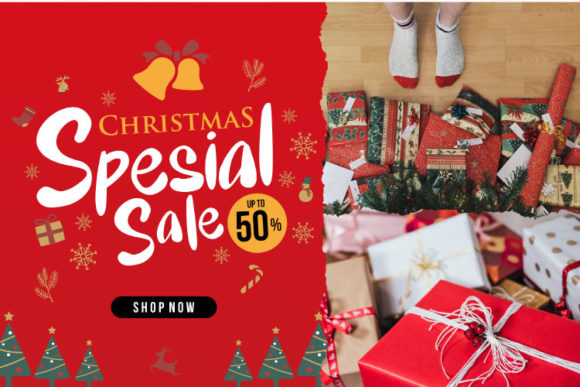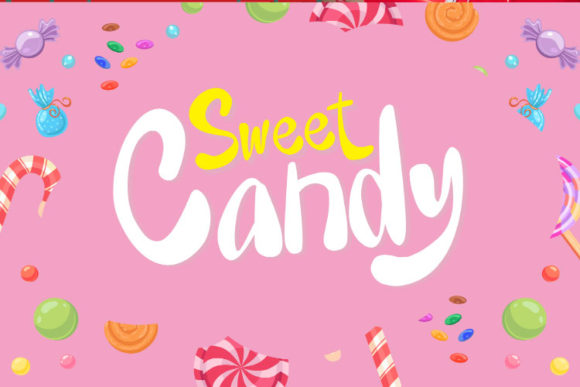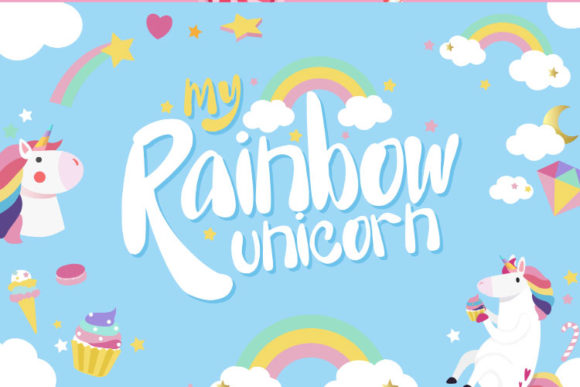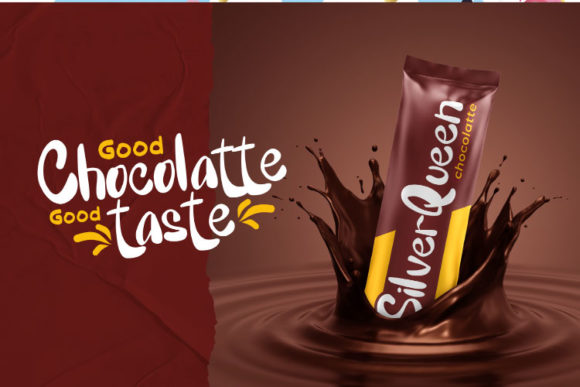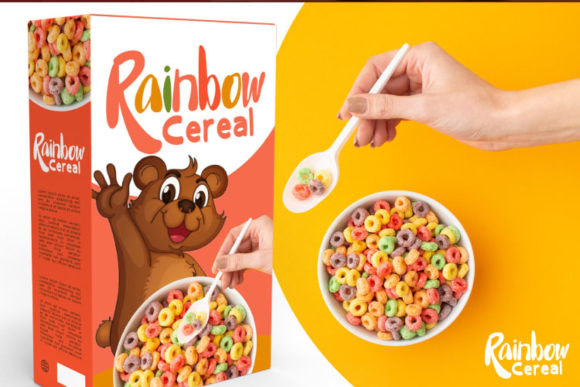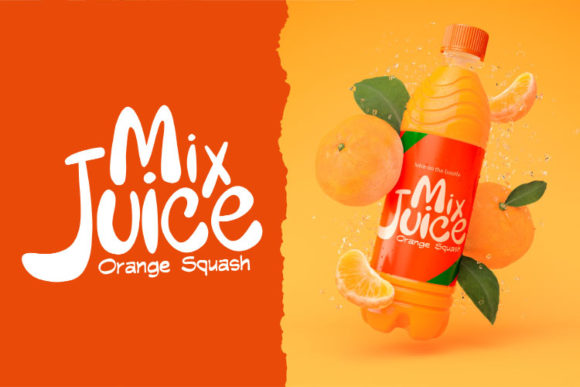
Introducing the Perfect Font for a Child’s Delight
As a designer, there’s nothing quite like the thrill of creating a project that brings a smile to a child’s face. You’re brainstorming ideas, flipping through inspiration boards, and finally, it hits you – the perfect font to capture the essence of your design. For me, it was the moment I stumbled upon the Hello Britney Font, and I knew I had found something special.
This fun and quirky display font is tailor-made for children’s themed designs, and its bright, playful vibe is sure to delight kids of all ages. When combined with bold colors and whimsical illustrations, Hello Britney Font brings a sense of wonder and magic to any project. For designers looking to add a touch of personality to their work, the Hello Britney Font is a valuable addition to any font library.
Hello Britney Font Key Features
- Unique Characteristics: The font features a unique, playful, and feminine design, making it perfect for fashion, beauty, and lifestyle branding.
Hello Britney Font Review
At first glance, the Hello Britney Font seems to be a playful and eye-catching addition to any design project. I really appreciate the ✨ eclectic feel it brings, blending elements of handwritten script and cursive fonts. It’s perfect for projects that need a dash of whimsy and personality.
Here are some specific things that work well with the Hello Britney Font:
- ✨ Uniqueness: It’s not a common font, so it adds a touch of individuality to any design.
- ✨ Expressive flair: The font’s irregularities make it feel more human and engaging.
- ✨ Versatility: It works well in both digital and print projects, from invitations to social media graphics.
However, there are some limitations to keep in mind:
- ⚠️ Readability: In smaller font sizes, the irregularities can make the text harder to read.
- ⚠️ Consistency: The font’s cursive nature can be inconsistent across different platforms and devices.
Overall, I think the Hello Britney Font is a great choice for designers who want to add a bit of flair to their projects. Just be mindful of the potential limitations, and use it in moderation to avoid overwhelming your audience. With careful selection and application, this font can be a true showstopper.
The Hello Britney font is ideal for:
- Celebratory designs (e.g. birthday invitations, party decorations)
- Music-related projects (e.g. album covers, concert posters)
- Playful and whimsical designs (e.g. children’s book covers, greeting cards)
Tips
To get the most out of the Hello Britney font, try:
- Pairing it with bold, bright colors
- Using it in combination with other playful fonts
- Experimenting with different font sizes and styles
Alternatives to Hello Britney Font